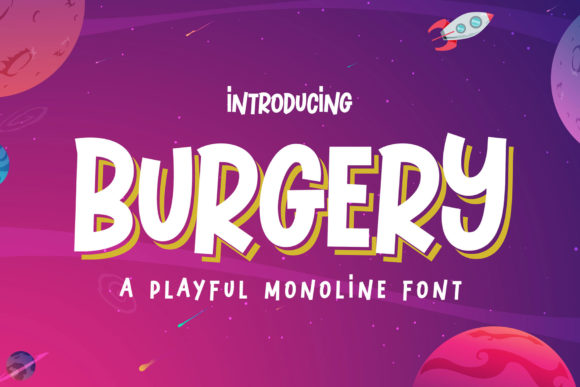
The Ultimate Bururgery Font Review: Adding Playfulness to Your Designs
I’ll never forget the time I was working on a children’s activity book project, and I just couldn’t find the right font to bring the illustrations to life. The client wanted something fun, playful, and engaging, but not too over-the-top. That’s when I stumbled upon Bururgery Font, and it completely transformed my design. In this article, I’ll share my experience with Bururgery Font, its features, and how to make the most of it in your designs.
What I Love About Bururgery Font
Burgery Font is a fun and joyful display font that embodies playfulness and authenticity. Here are some things I love about it:
• ✨ Unique and chunky lettering style that adds a personal touch to any design
• ✅ Perfect for children’s activity books, school projects, and other kid-friendly designs
• 🎉 Highly legible, even at larger font sizes
• 👍 Easy to pair with other fonts for a cohesive look
While Bururgery Font is an amazing addition to any design, there are a few things to keep in mind:
• 🤔 Limited character set, which may not be suitable for more complex designs
• ⚠️ Not ideal for body text or smaller font sizes, as it can become difficult to read
The Story Behind Bururgery Font
Burgery Font was designed with playfulness and authenticity in mind. The designer wanted to create a font that would bring joy and energy to children’s designs, while also being easy to read and use. The result is a font that’s perfect for anyone looking to add a personal touch to their designs.
Author Arterfak Project
What is Bururgery Font best used for? Burgery Font is best used for children’s activity books, school projects, and other kid-friendly designs that require a fun and playful font.